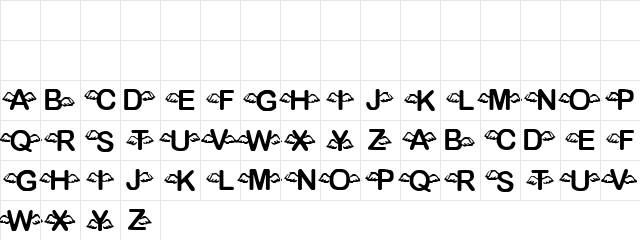
Lust Angeleno Regular
Design Context for Lust Angeleno Typeface
Lust Angeleno is a composed and adaptable typeface that performs quietly and consistently across a wide range of design contexts.